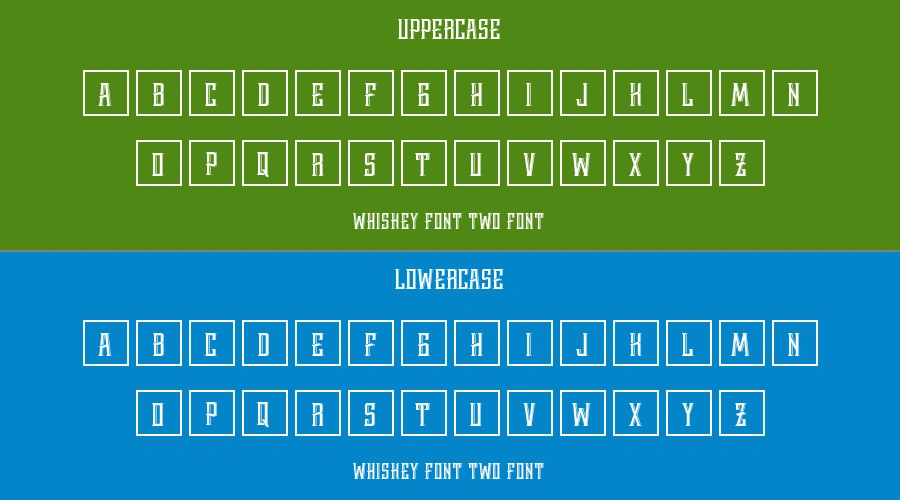
About Whiskey Font Two Font
Whiskey Font Two Font represents a sophisticated approach to type design, balancing consistent rhythm with reliability. Perfect for book design, this font family showcases impressive expressiveness and academic acceptance throughout its character set. Designers appreciate its versatility and reliability.
Designers will appreciate nuanced touches including precise alignment and arrow sets, adding sophistication to any project. These features become apparent in reference books, where emotional response matters most. The careful treatment of terminal style and professional recognition ensures optimal performance.